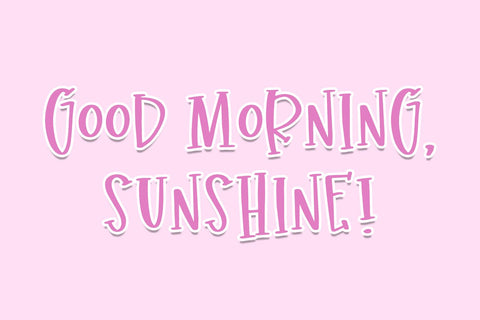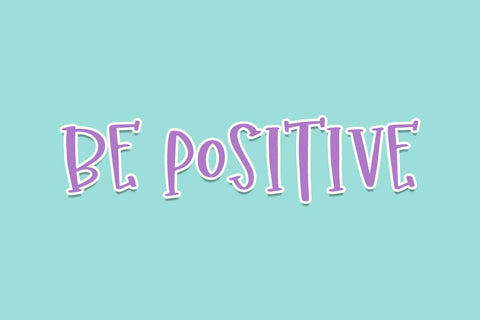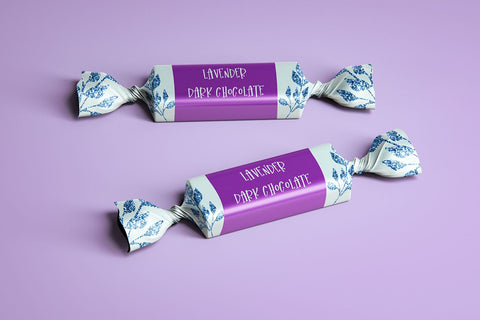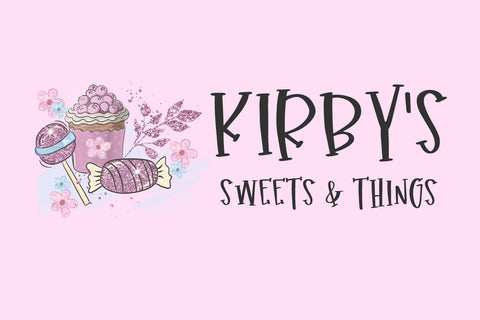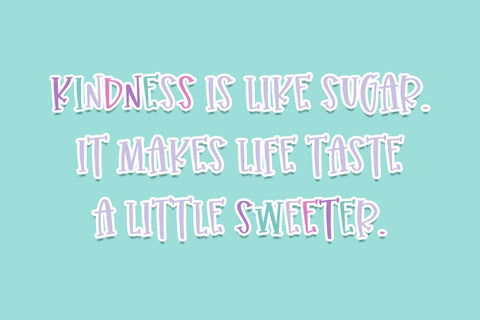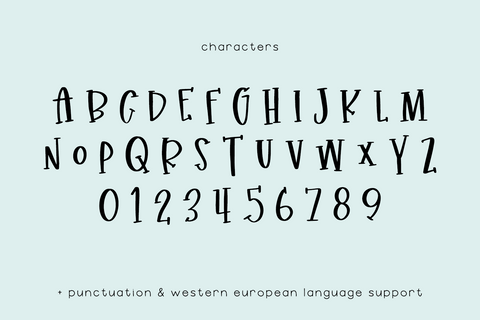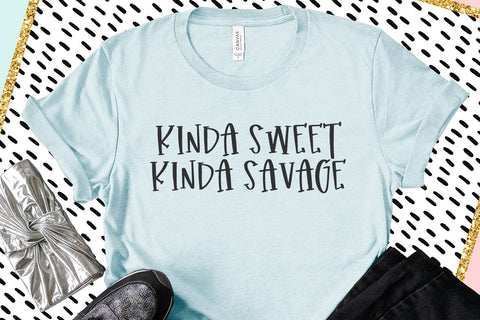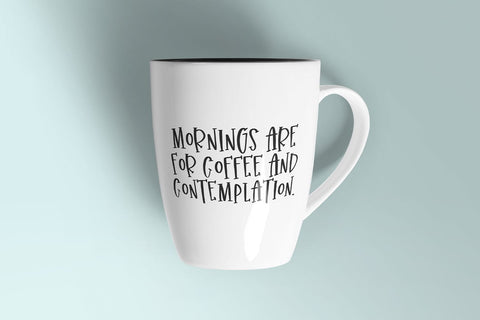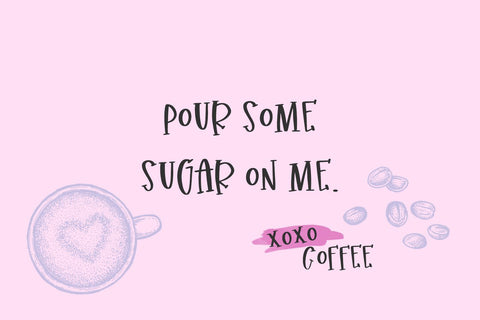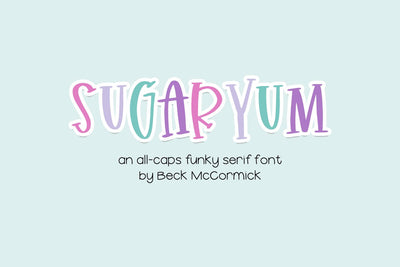
Sugaryum Handlettered Serif Font
Say hello to Sugaryum, an all-caps font with adorable serif accents. Sugaryum is playful and quirky.
Sugaryum is best for:
- feminine, crafty projects with your Cricut or Silhouette machine, or your SVG design business
- farmhouse decor and crafts
- logos + branding
- website design + website accents, blog design
- clean print design, like magazines + flyers
- header elements that need handwritten touch
- quote graphics for social media
- feminine graphic tee shirt design & other apparel
- full upper + lowercase characters - caps characters are programmed into lowercase spots for your convenience!
- numbers + punctuation
- Western European Language Support